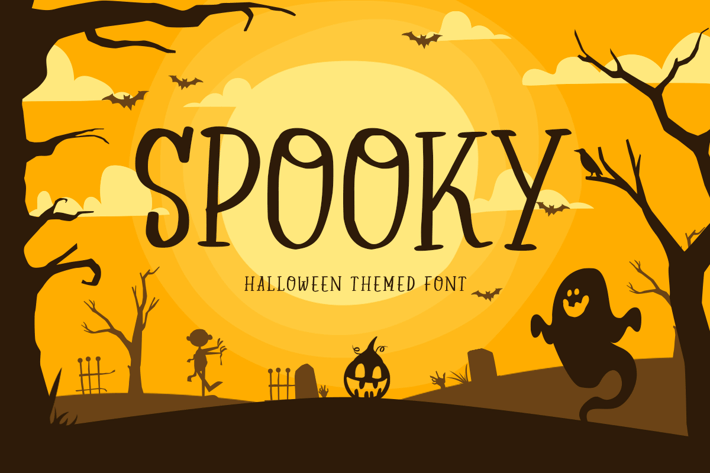
Spooky - Halloween Font
Spooky font is the perfect Halloween-themed font that blends spooky and playful vibes for a fun-filled design experience. With its quirky curves and ghostly style, it’s ideal for Halloween party invitations, posters, and seasonal branding that needs a touch of festive charm. Spooky font adds a lighthearted twist to spooky themes, making it great for both kids and adults.
This font was crafted with the holiday spirit in mind, allowing for a creative flair in projects where you want to bring out the Halloween fun. Whether it’s for print or digital, Spooky font captures the whimsical essence of Halloween, combining spooky elements with a dash of humor.
For those looking to enhance their Halloween-themed projects, Spooky font offers the perfect blend of scary and cute, ensuring your designs stand out with a unique and memorable style.
Spooky font Halloween Font Features:
Unique Halloween-themed Characters Ready